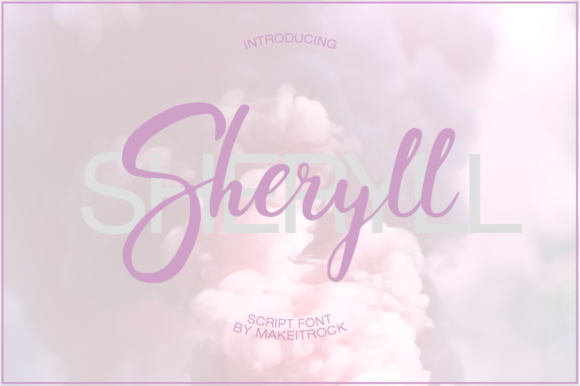
Prepare yourself to be captured by the gorgeousness of Sheryll Font, the script typeface that's destined to enchant you with its delicately handcrafted characters and feminine flair. Crafted with precision by the renowned Katie Holland, this extraordinary font family rekindles the essence of elegance and sophistication, making it the perfect choice for those who seek a touch of magic in their creative endeavors.
Immerse yourself in a world of endless possibilities, where Sheryll Font becomes the muse of your artistic expression. Its enchanting curves and graceful swashes dance harmoniously, adding an alluring charm to your designs. Unleash your imagination and allow your words to take flight, as this font weaves a spellbinding narrative that captivates hearts. Whether you're crafting logos that radiate timeless allure, creating headings that command attention, or designing wedding invitations that exude romance, Sheryll Font is your trusted companion, guiding you towards an aesthetic masterpiece.
Transform your quotes into works of art, as Sheryll Font lends its unique voice to your messages. Every letter, meticulously crafted, becomes a vessel for your emotions, conveying sentiments with a touch of grace and a hint of mystery. Its allure extends beyond mere words, seamlessly enhancing any design project that yearns for an elegant touch. With Sheryll Font as your creative partner, your designs will blossom into a symphony of sophistication, leaving a lasting impression on all who behold them.
Embrace the allure of Sheryll Font and embark on a journey of creative enchantment. Let its beauty captivate your senses as you bring your vision to life. Discover the boundless potential within this font, the key to transforming your designs into mesmerizing works of art. Surrender yourself to its charm and allow Sheryll Font to lead you towards the ultimate expression of elegance and femininity in your creative pursuits.